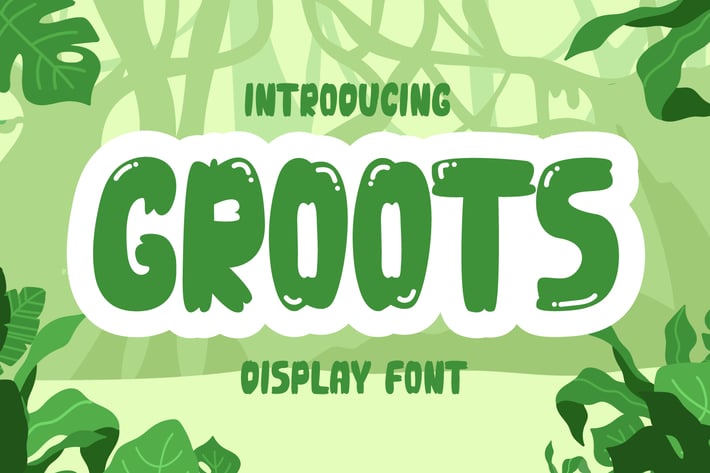
Groots - Display Font
Introducing Groots - Display Font
Groots is a playful, cool, and modern display font. It embodies fun, uniqueness, and authenticity. This dazzling display font will turn any creative idea into a standout!